2 Google Fonts Similar to Gibson
Gibson is a sturdy sans-serif font that is widely used in many apps today. It is very popular in corporate design. Gibson comes in 8 different weights, which makes it a good fit for both body and headline text.
After digging through the Google Font library, I was able to find two good font alternatives.
What Google Fonts are Similar to Gibson?
The best Google Font alternatives for Gibson are:
- Noto Sans
- Montserrat
Either one of these would be a great alternative to Gibson. So let's cover what they have in common and what the differences are.
Noto Sans
Noto Sans is a very popular sans-serif that is available in the Google Font library. It is a pretty close match to Gibson. There are some minor differences in the lowercase "g", "y", and "t".
The uppercase is also very similar. The main difference is in the "I".
Although they are not exactly the same, I believe that they are close enough to be used as an alternative.
Go ahead and compare below.
Montserrat
Montserrat would also be another good alternative for Gibson. The letters are a little wider than Gibson, but the overall look and feel is the same.
In the lowercase letters, there is a small difference in the "y" and "g". However, every other letter is very similar.
The uppercase is where things start to differ some. You will see the main differences in the "M", "G", "Q", and "R".
So if your design will be using a lot of uppercase then I would not recommend Montserrat as an alternative.
Take a look below.
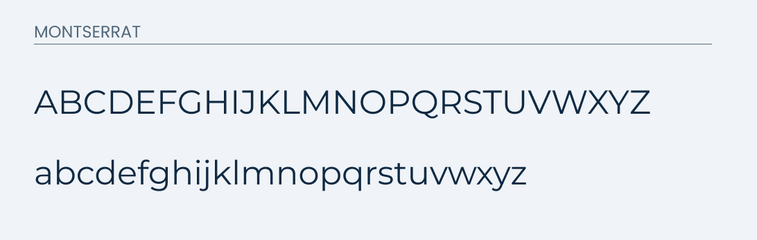
Final Thoughts
Both Notos Sans and Montserrat would make for good alternatives to Gibson. I believe that Noto Sans would be your best bet between the two since it matches both the uppercase and lowercase better.